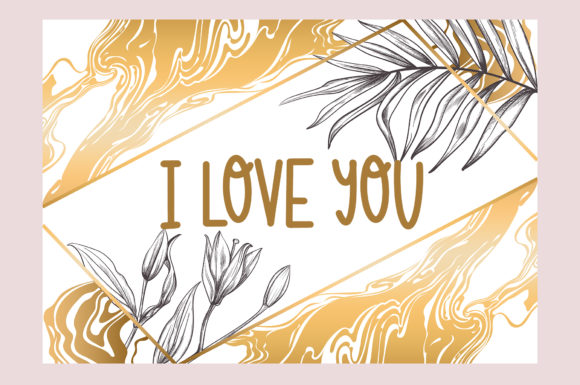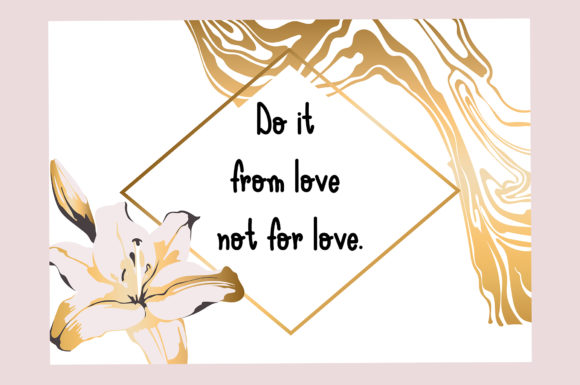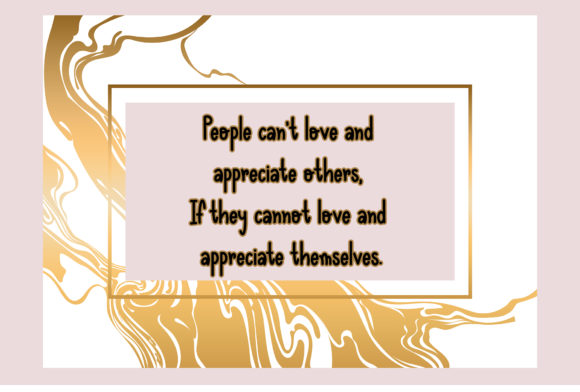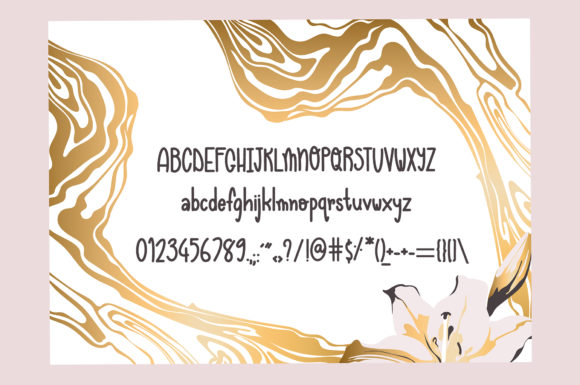
About Macchina Font
Macchina is a font that exudes sweetness and friendliness, making it a delightful choice for a wide range of design projects. Its sweet and friendly handwritten style enhances your creations, adding a touch of charm that captivates the eye.
With its natural and unique nature, Macchina brings a sense of warmth and approachability to your designs. Whether you’re working on branding materials, social media graphics, quotes, greeting cards, logos, business cards, or any other project, this font elevates each creation with its delightful allure.
Macchina’s handwritten essence adds a personal and authentic touch to your designs, making them feel genuine and special. It’s like a friendly companion that infuses your creative ideas with a sense of joy.
Incorporating Macchina into your designs allows you to explore a wide range of creative possibilities. Its versatility serves as a canvas for your imagination, empowering you to create visually stunning and captivating designs.
Moreover, Macchina’s unique style ensures your designs stand out with a sweet and inviting presence. Its charm sets your projects apart and makes them truly memorable.
The only limit with Macchina is your imagination. Its adaptability makes it fitting for various design concepts and themes, giving you the freedom to express your creativity without boundaries.
Embrace Macchina’s sweetness and friendliness as it transforms your ideas into spectacular designs that resonate with warmth and charm.
In summary, Macchina is more than just a font; it’s a sweet and friendly companion that enhances your creative ideas. Embrace its natural beauty and notice how it transforms your projects into delightful works of art. With Macchina, your designs become true expressions of joy and approachability, leaving a lasting impression on all who encounter them. Let Macchina be the font that adds a touch of magic to your designs, creating a world of endless possibilities and capturing the hearts of your audience.